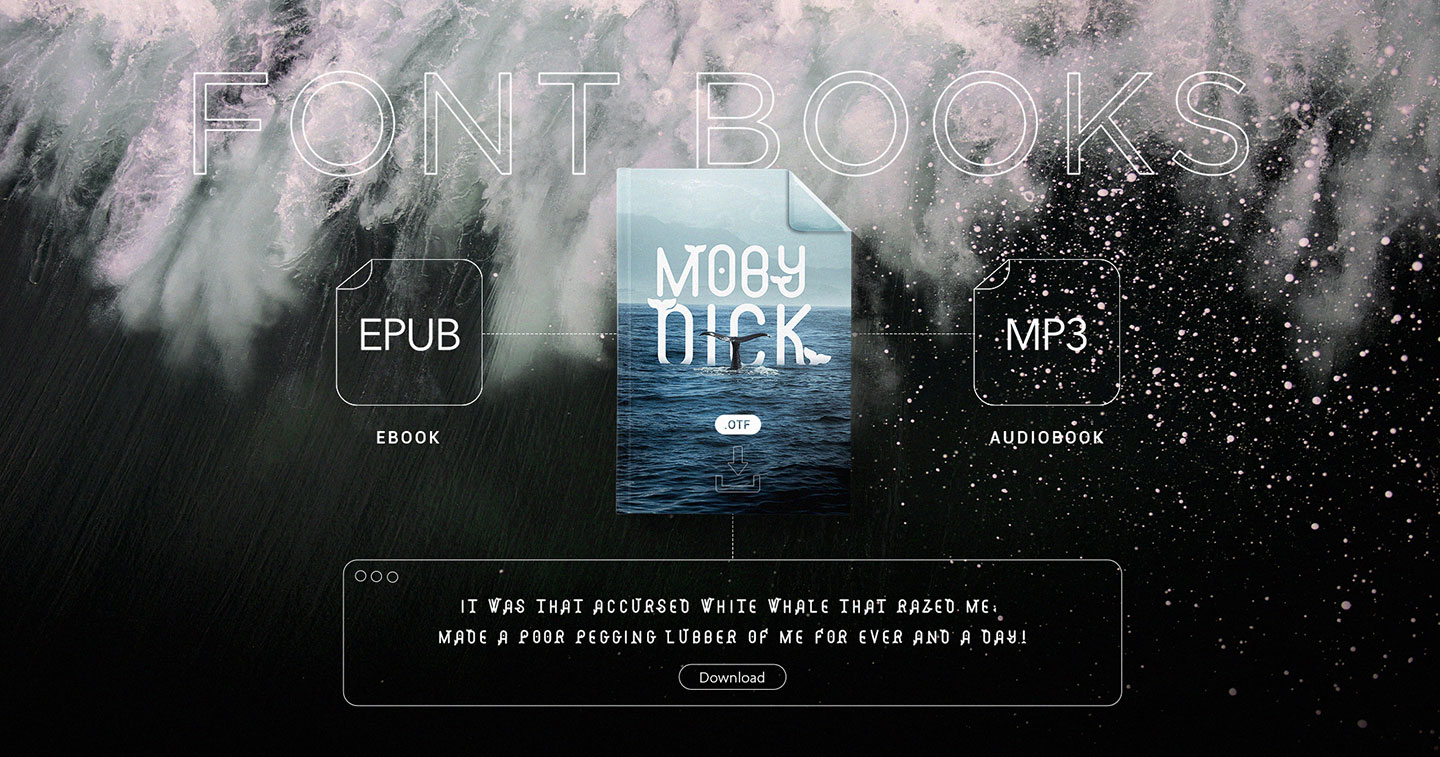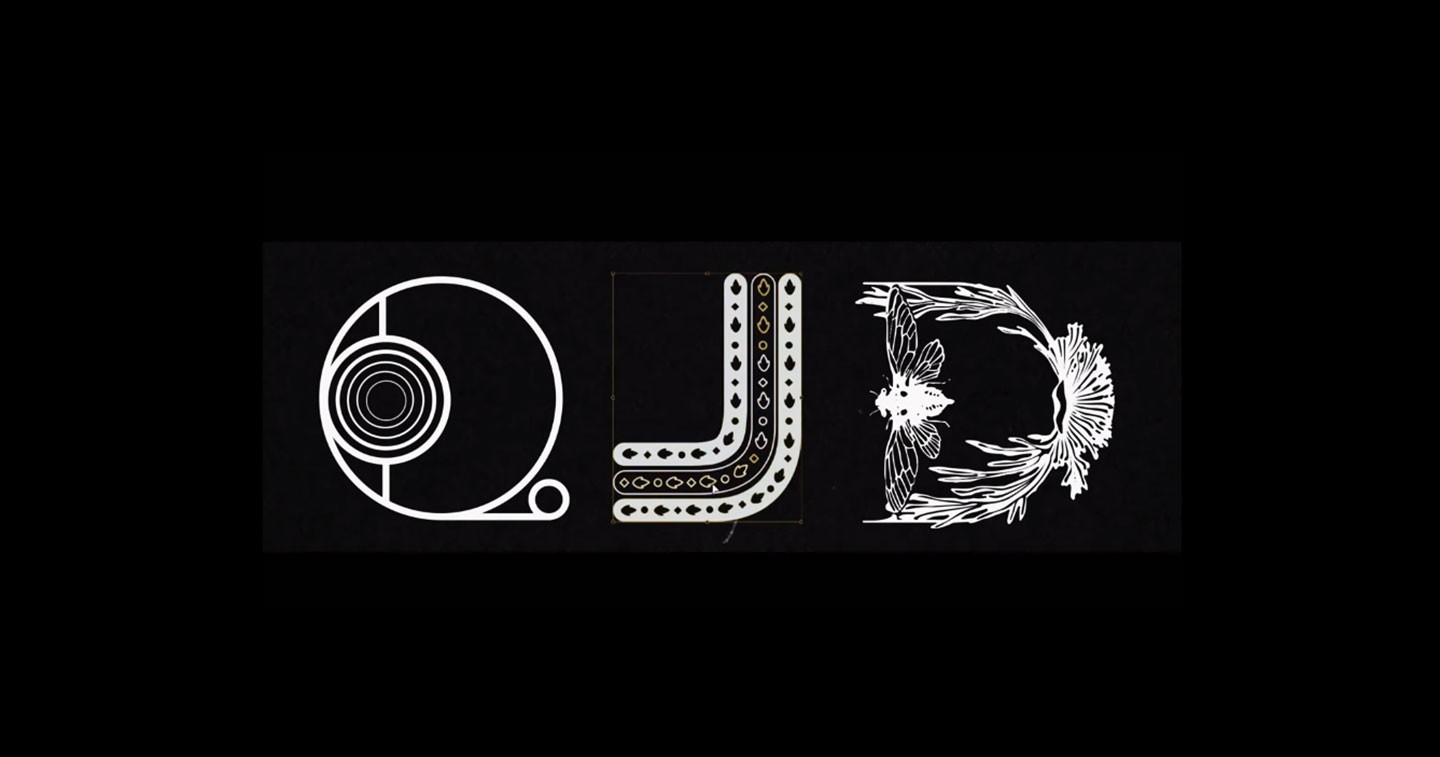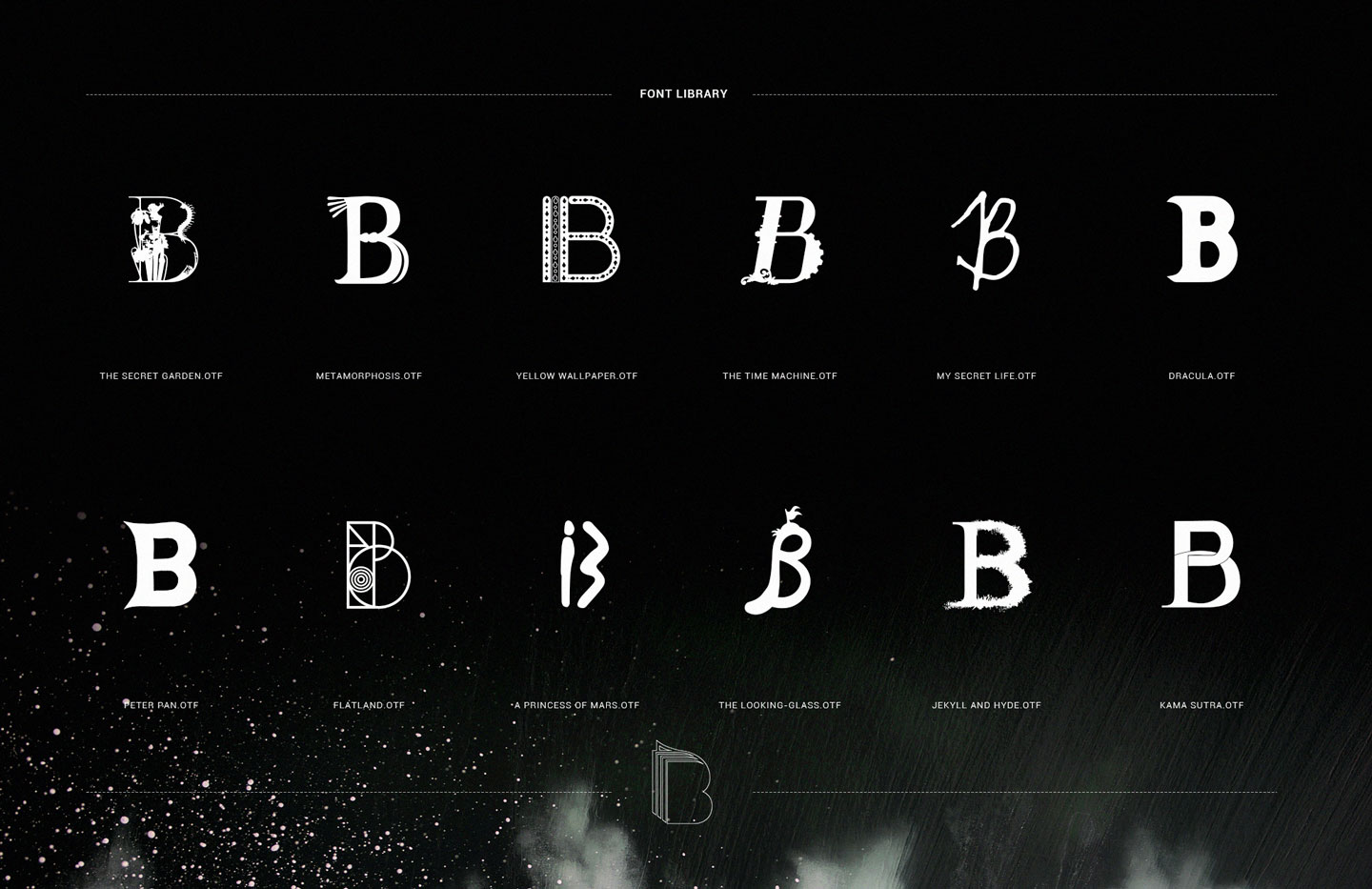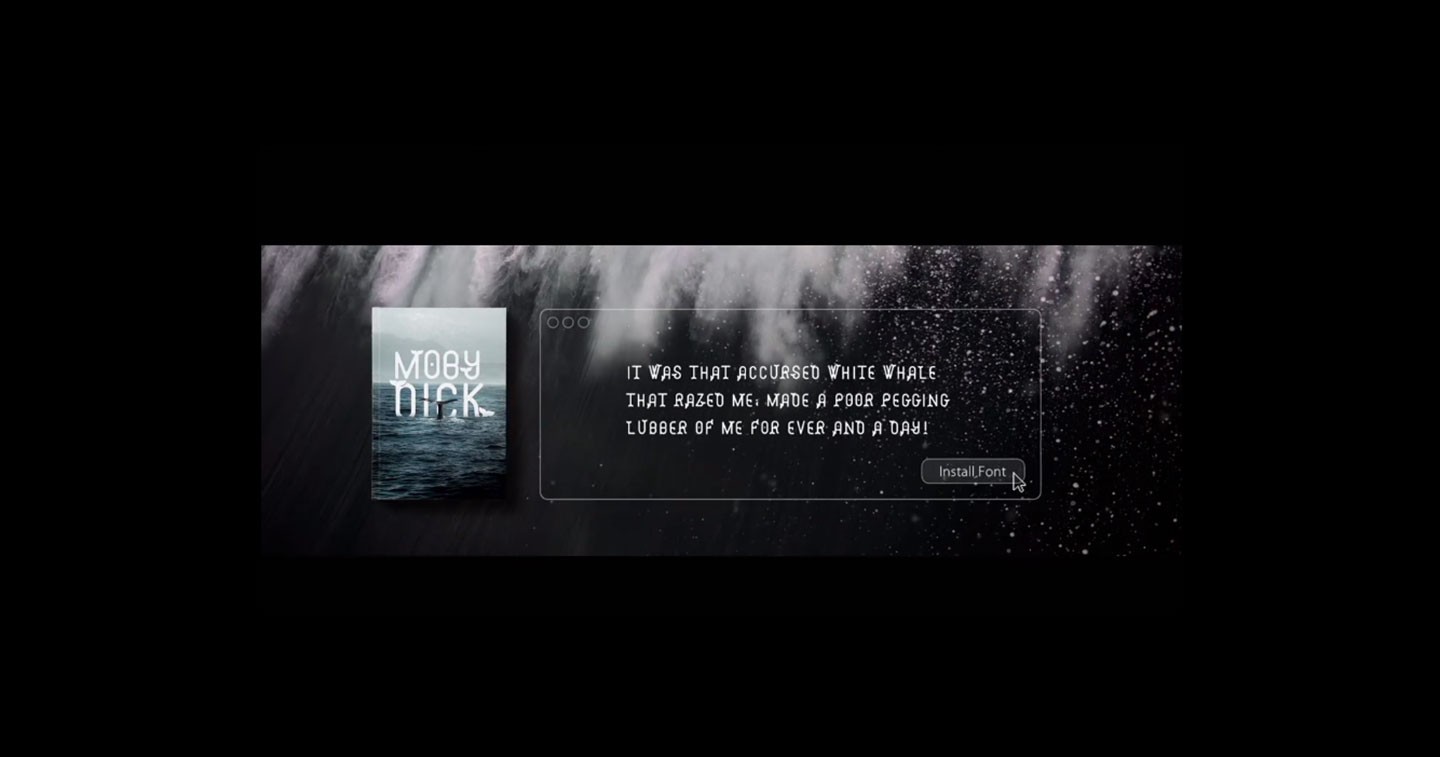
Design: BBDO Guerrero Launches “Font Books” with The Reading Association of the Philippines to Celebrate its 50th Anniversary
MANILA, PHILIPPINES — For the 50th anniversary of The Reading Association of the Philippines (RAP)it partnered with BBDO Guerrero to encourage the appreciation for classic stories through a collection of original typefaces called Font Books”.
The concept was first introduced and created by BBDO Creative Director Michelle Eduwho submitted the idea to the adobo magazine LIA Young Creative Competition in July 2019. With a brief to create a campaign that highlights the power of books to boost the value of creativity, the “FontBooks” proposal won her a spot on the team that represented the Philippines at the international program, 2019 Creative LIAisons, as part of the London International Awards.
From an exclusive interview with Edu last year, she shared the idea behind the campaign. After seeing a font from teammate’s board, she realized how much advertisers are exposed to fonts and that the process of installing them would be an effective platform to introduce them to epic stories and classic novels. Hence, the Font Book. Her winning entry incorporates classic stories to samples of digital fonts to get art directors, copy writers, and the like to get intrigued by the story and pick up the book for themselves.
As the idea sat on the shelves for a few months, the campaign is now in full display as an initiative from the agency for The Reading Association of the Philippines (RAP). BBDO Guerrero designed a mix of display and text fonts, individually crafted to give a better appreciation and understanding for classic stories. Every free download of one of the fonts come with a copy of the classic novel that inspired it, in both eBook and audiobook formats.
Taken from the original concept from Edu, instead of the generic font preview that is typically used, such as “The quick brown fox jumps over the lazy dog,” Font Books uses custom excerpts taken from the novels that inspired the fonts, such as “It was that accursed white whale that razed me; made a poor pegging lubber of me for ever and a day!” (Moby Dick) and “One morning, when Gregor Samsa woke from troubled dreams, he found himself transformed in his bed into a horrible vermin.” (The Metamorphosis.)
The project was launched on February 15 at Graphika 2020, one of the world’s biggest design events based in Manila, with the fonts printed in an actual book that attendees could peruse.
“We created these typefaces as a way to feature books in a new, non-intrusive manner—inspired by people just like myself who spend way too much time looking for free fonts online and not enough getting into the classics,”says BBDO Guerrero Creative Director—and the art-based talent behind the work—Michelle Edu.
BBDO Guerrero Creative Chairman David Guerrero adds, “Thisis a labor of love and stealth by the team. Download a new font for free and get a timeless work of literature in the bargain. We hope it sparks off renewed appreciation for these great books.”